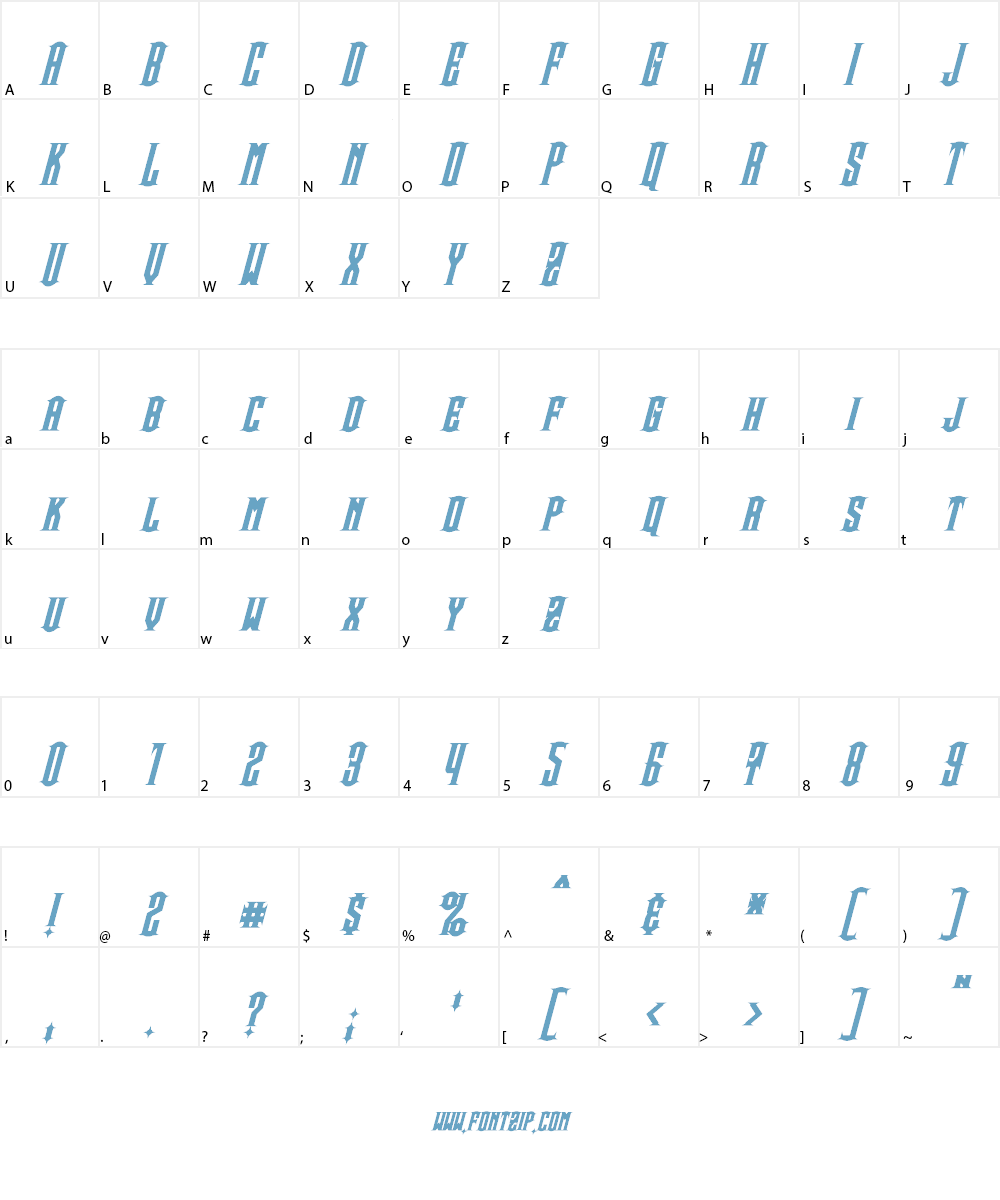
Steamwreck is a tall, thin, ‘western-style’ wrought-iron typeface with worked-details to evoke a ‘steampunk’ feel to the text. Includes fill alphabet, extended punctuation, Euro. Includes regular, bold, italic, and bold-italic faces.